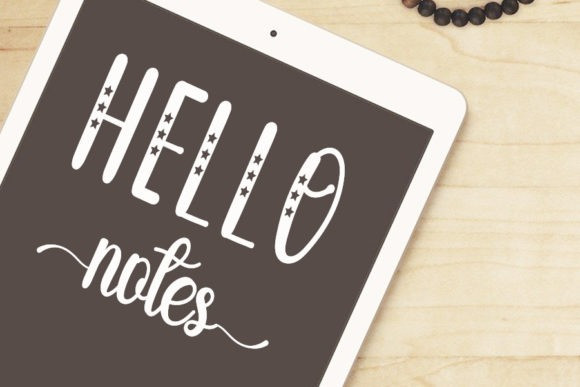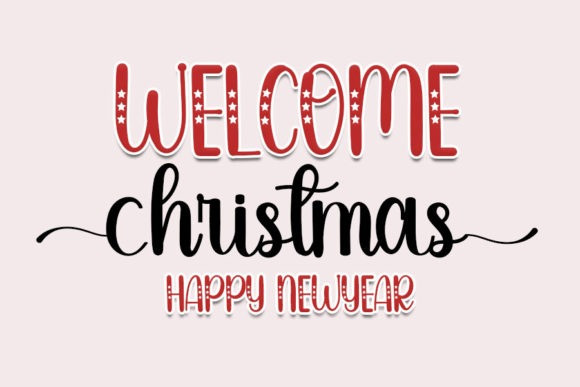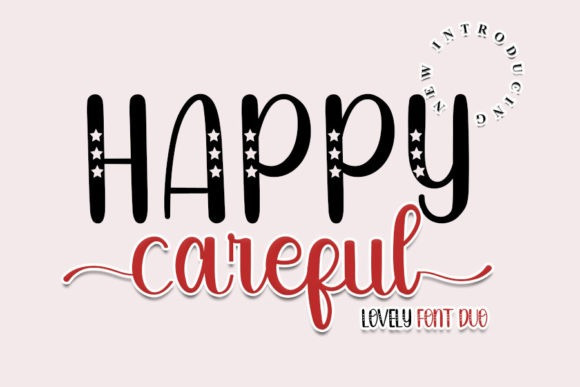
Happy Careful Font
Happy Careful Display Font consists of two fonts designed to complement each other perfectly. Together or apart, these fonts are ideal for adding a chic and cheery touch to your crafts. This font is PUA encoded which means you can access all glyphs and swashes with ease!